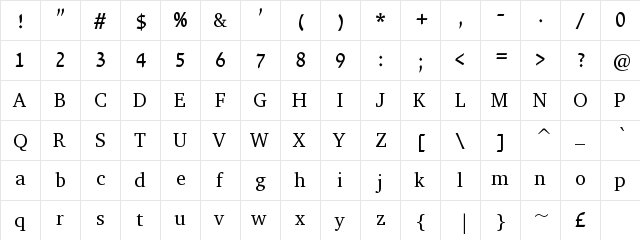
Taamey David CLM Medium
Design Context for Taamey David CLM Typeface
Taamey David CLM offers clean, dependable letterforms without strong stylistic allegiance, making it a practical choice for designers who need flexibility.